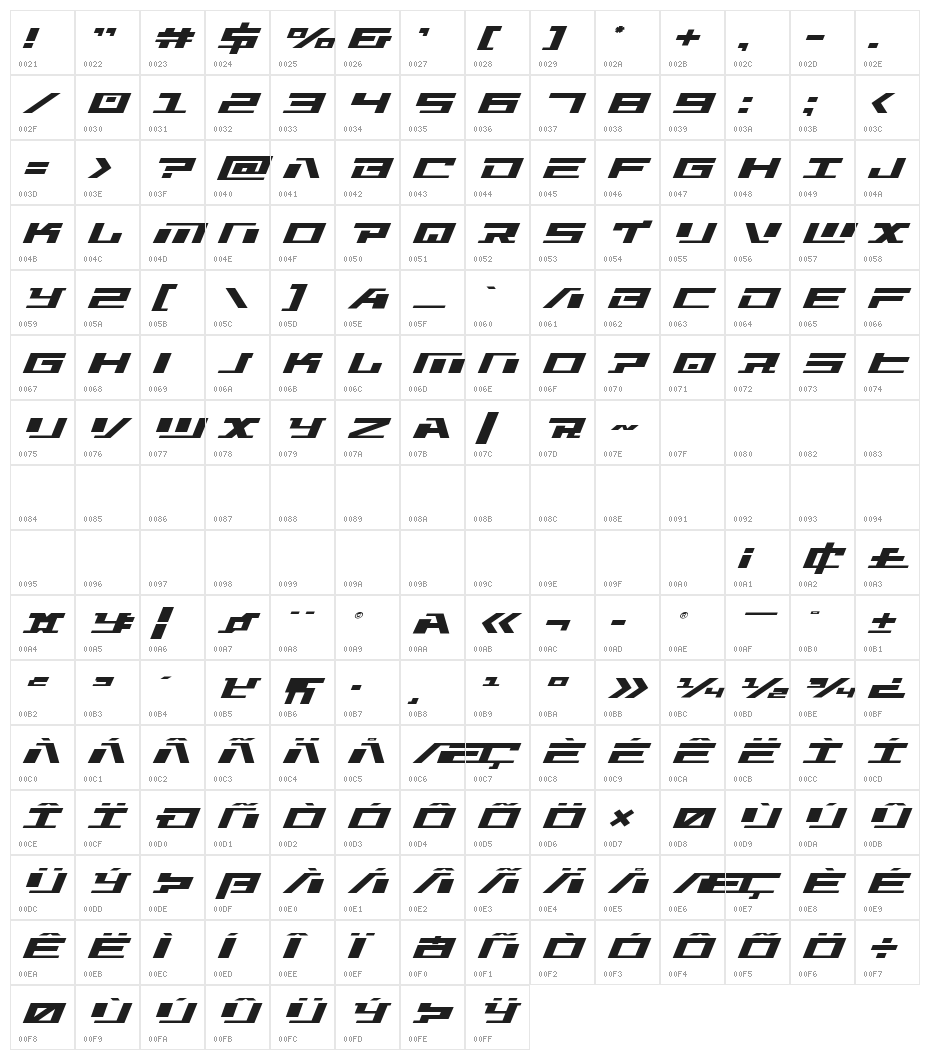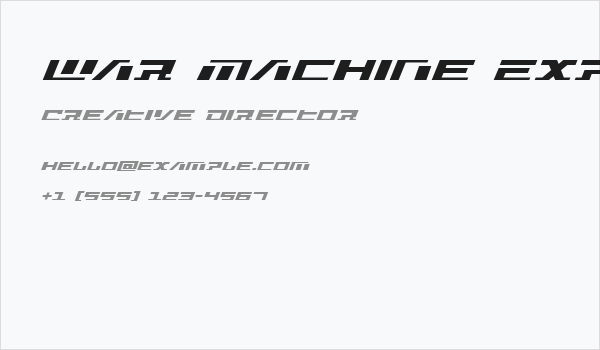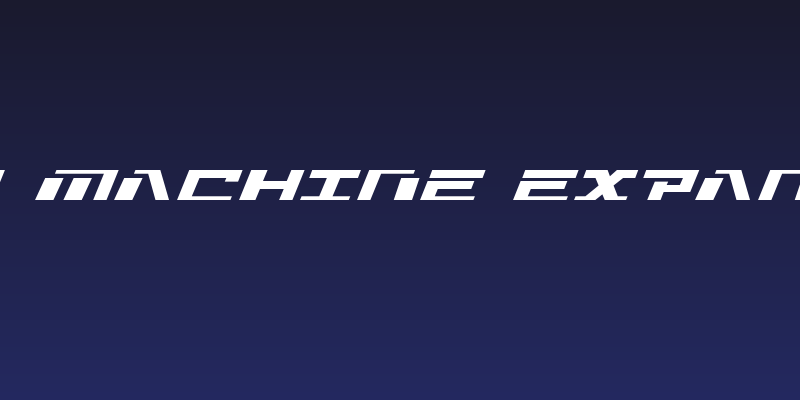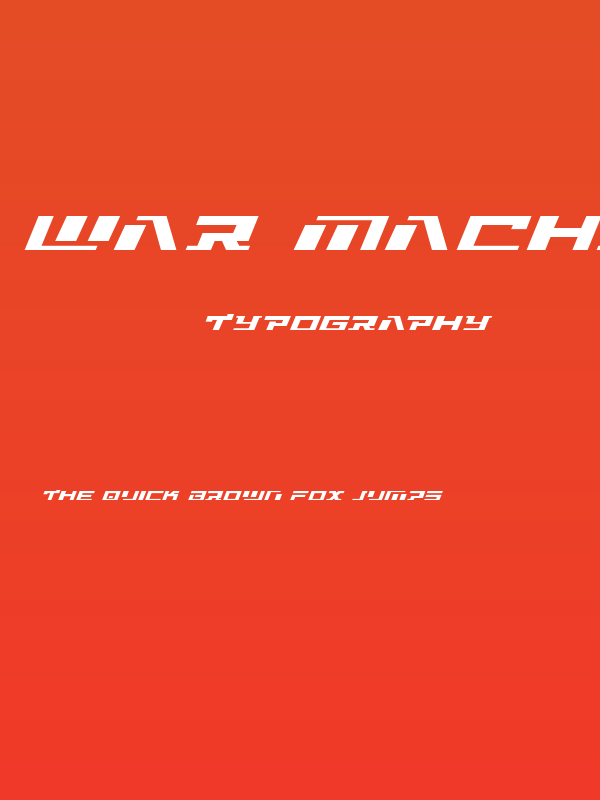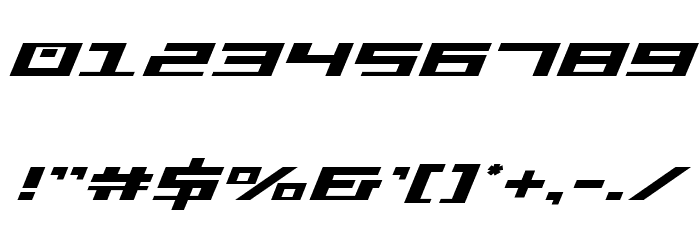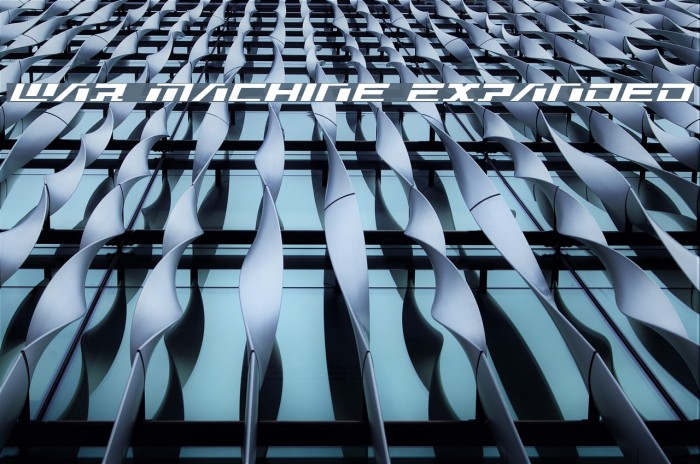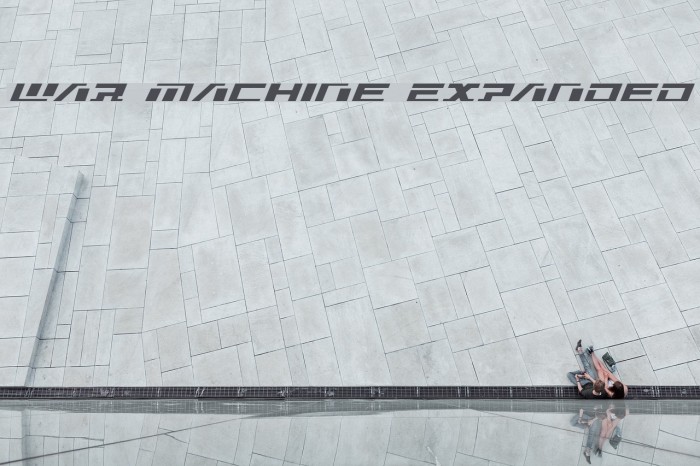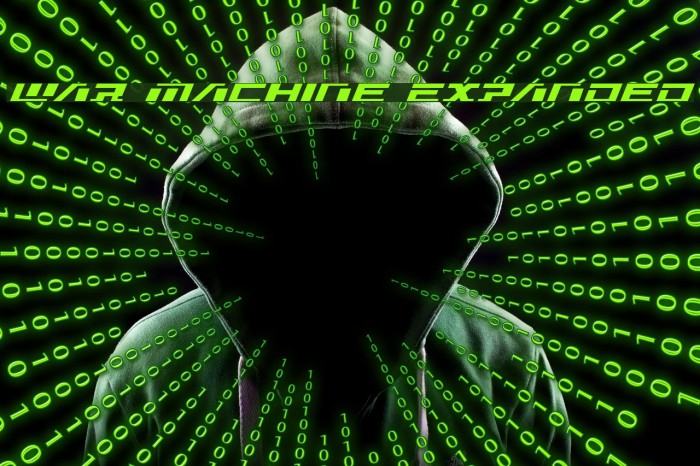
War Machine Expanded Font
War Machine Expanded Description
This font features a bold, angular design with a futuristic and mechanical aesthetic. The characters are sharply defined with a distinct slant, giving them a dynamic and aggressive appearance. The geometric shapes and strong lines create a sense of movement and power, making it ideal for projects that require a modern and edgy look. The uppercase and lowercase letters maintain a consistent style, while the numerals and special characters complement the overall design. This font is perfect for creating impactful headlines, logos, and branding materials that demand attention.
| Proposed Projects | Ideal for sci-fi themed designs, video game titles, technology branding, and dynamic posters. |